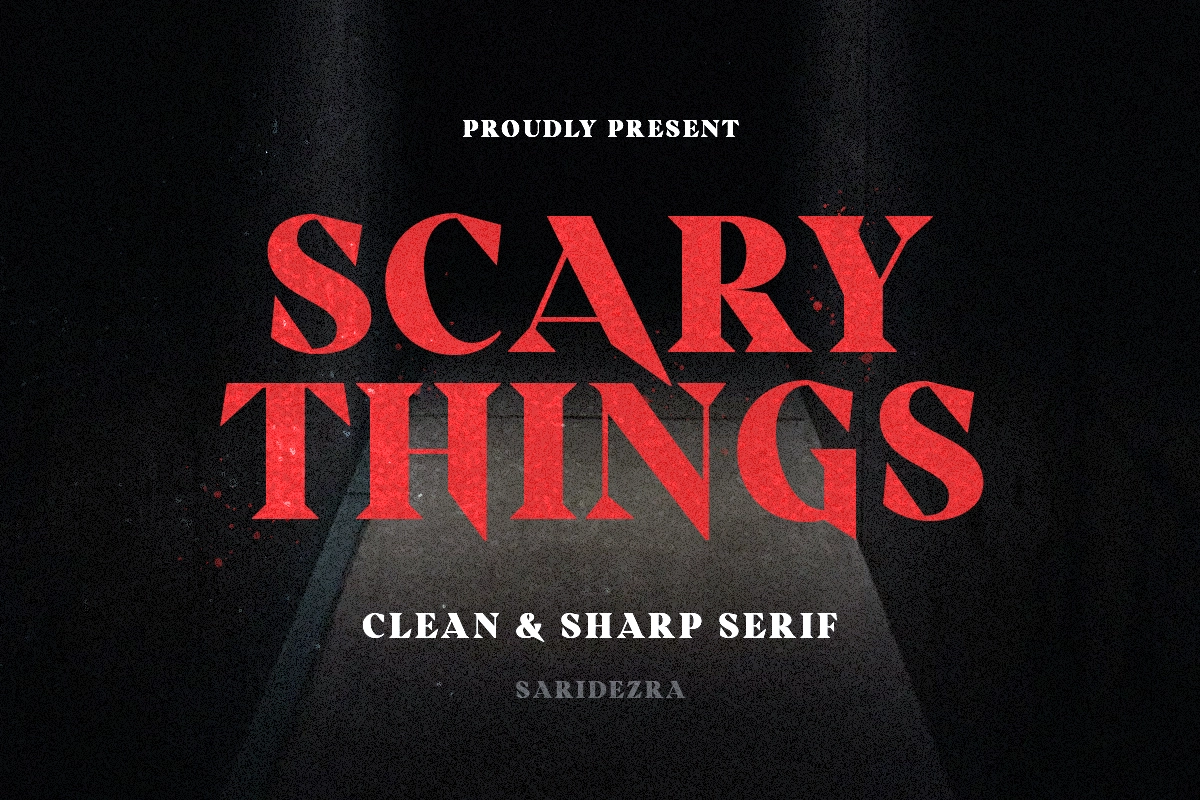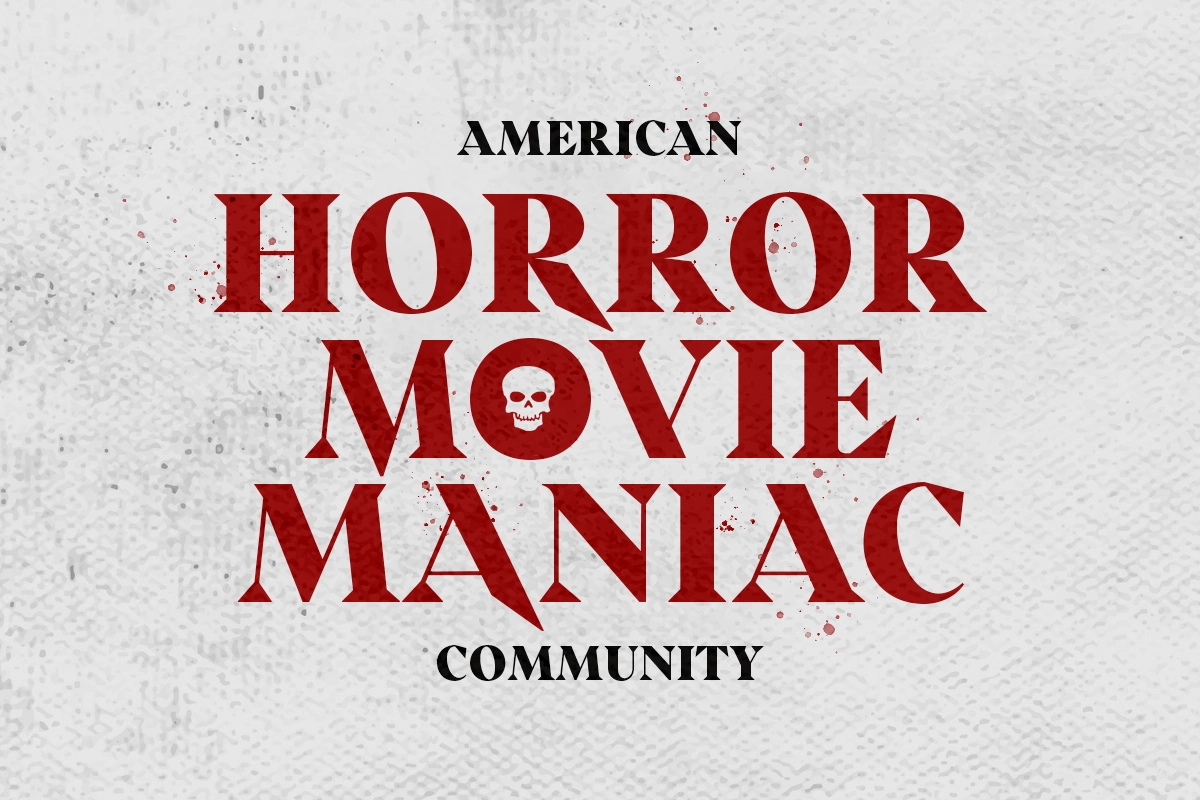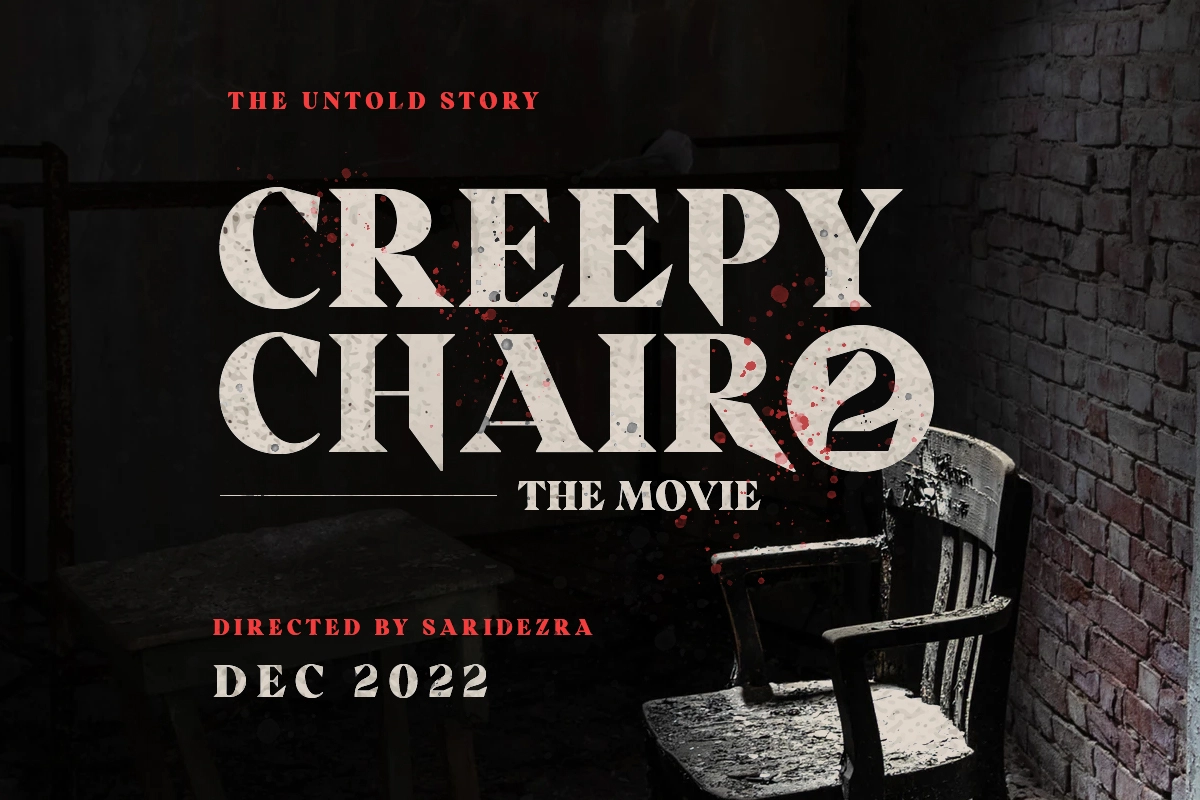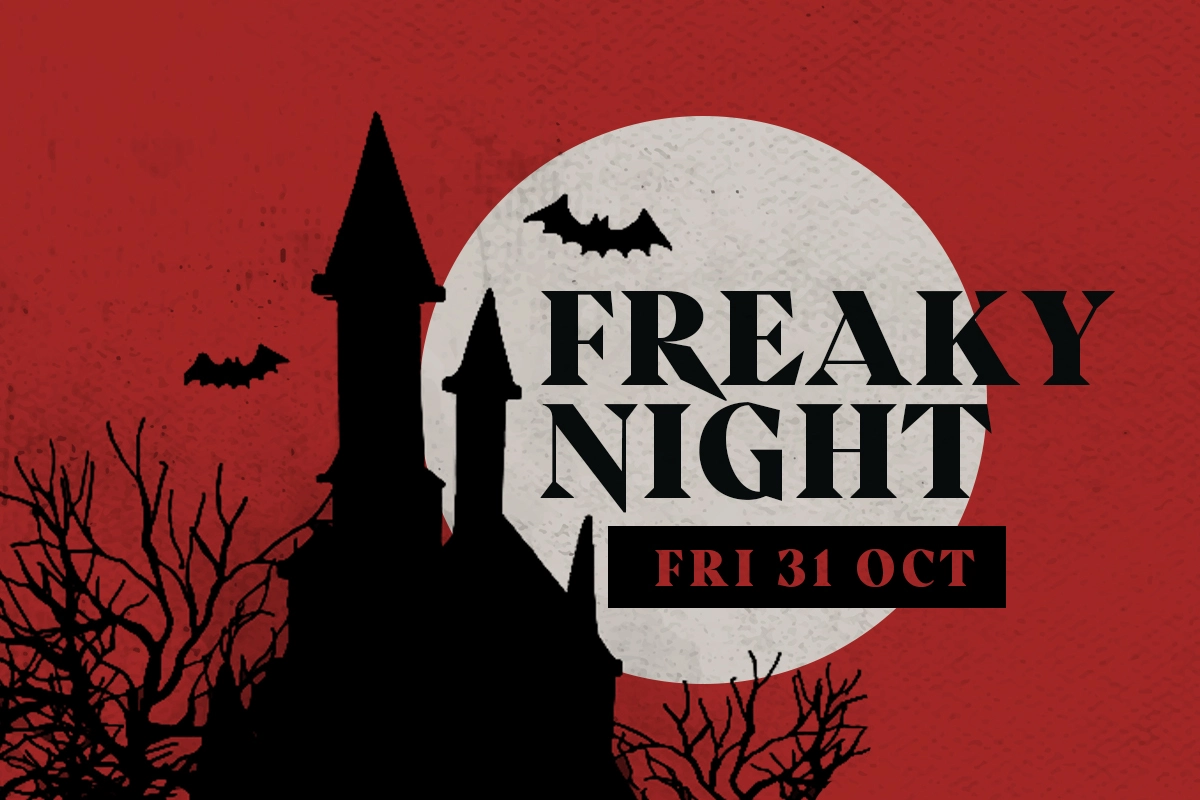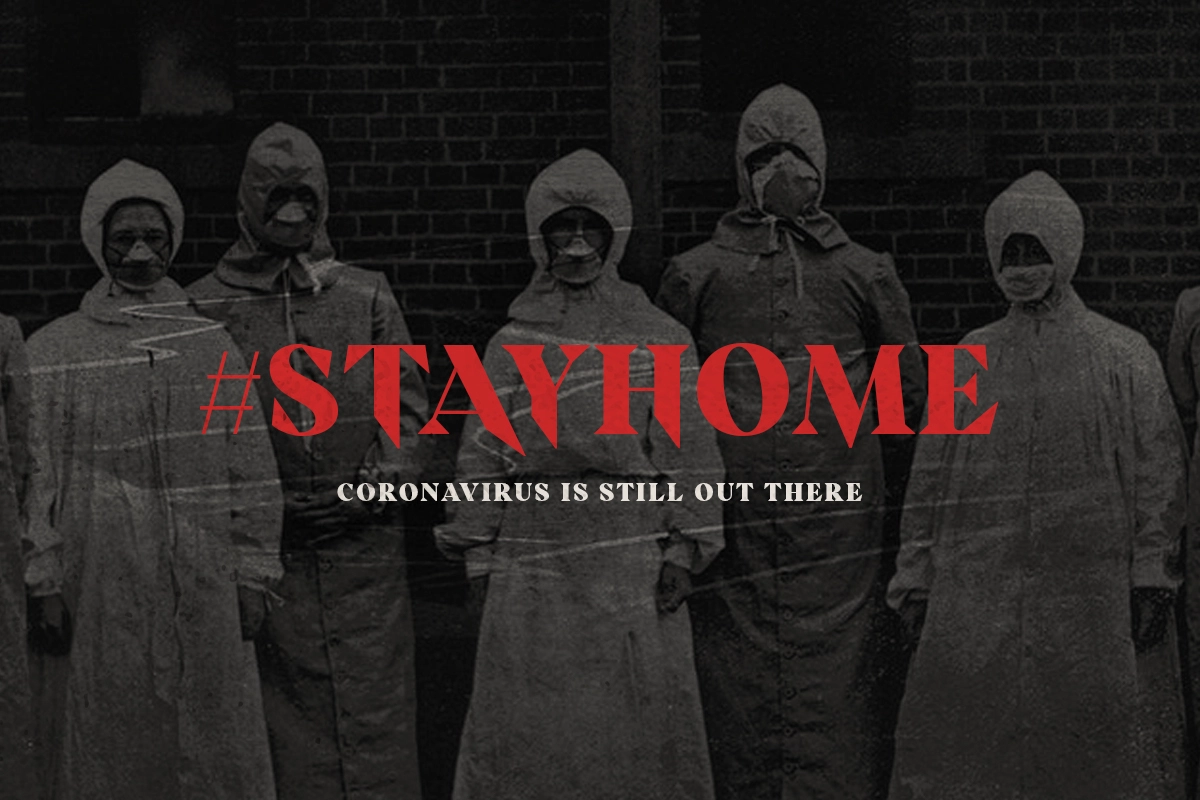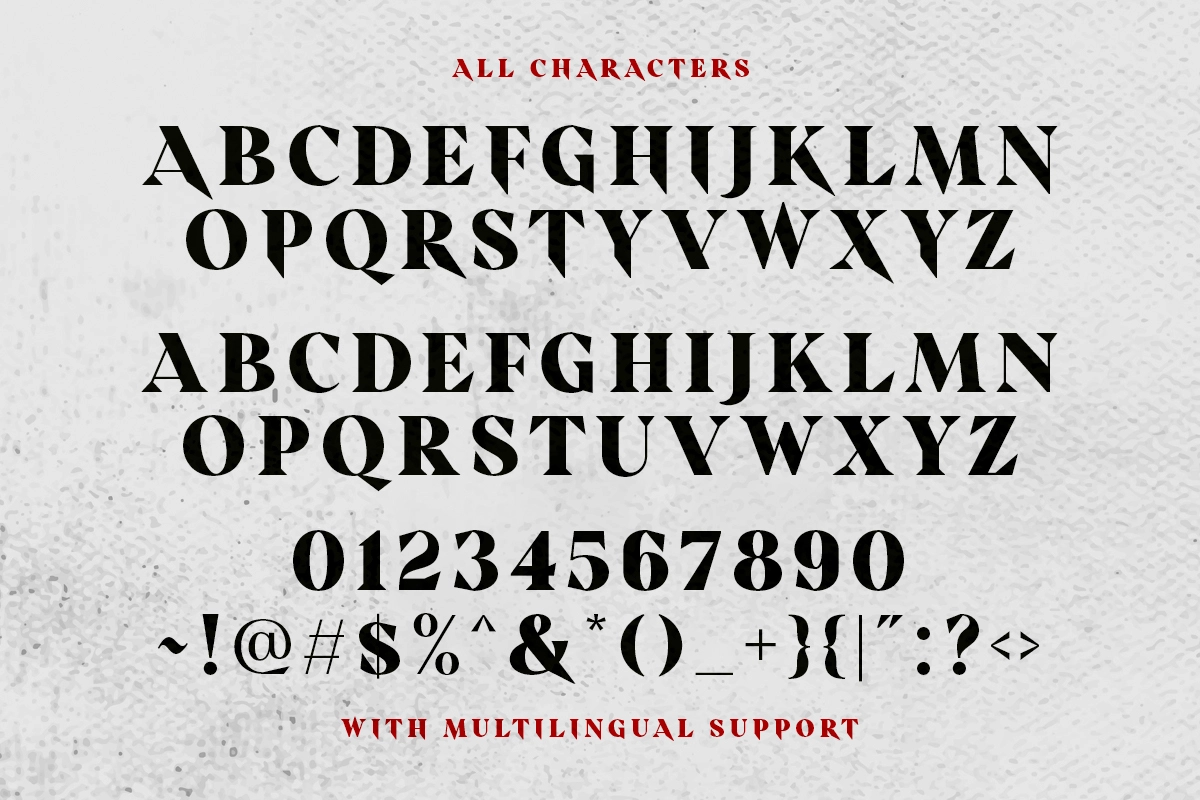
Scary Things - Sharp Serif
Scary Serif
Scary Things is a sharp serif with horror & creepy vibes! This serif is so clean that will make your design pop up. This font is suitable for poster movies especially thriller & horror movies. With unique & sharp shape, this font will make your poster more stand out! You also can use this font for any design because of the versatility in this font. Also, this font support multi language. Let's make your next halloween poster with this font!